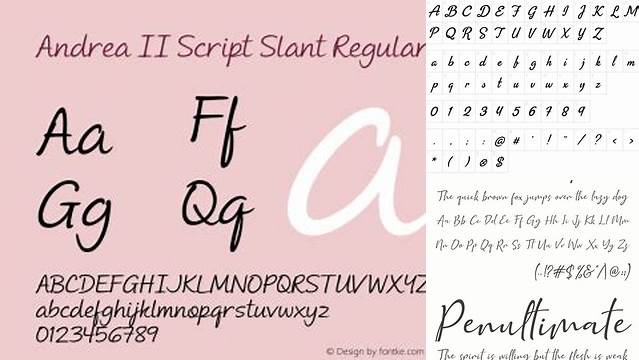
Andrea's Script Slant Font: Free Download Guide
Are you looking to add a touch of elegance and personality to your design projects? Look no further! Andrea's Script Slant font might be just what you need. This typeface combines the fluidity of script fonts with a subtle slant, creating a unique and eye-catching aesthetic. In this article, we'll delve into everything you need to know about Andrea's Script Slant font, including its characteristics, potential uses, and, most importantly, where you can find it for free download. So, buckle up and let's explore the world of this beautiful font!
What Makes Andrea's Script Slant Font Special?
Andrea's Script Slant font stands out from the crowd due to its distinctive features. Unlike traditional script fonts that often appear overly formal or rigid, Andrea's Script Slant strikes a perfect balance between sophistication and playfulness. The gentle slant adds a dynamic quality, making it feel more modern and approachable. The flowing lines and carefully crafted curves give it a handwritten feel, imbuing your designs with a personal touch. Whether you're working on wedding invitations, logos, branding materials, or social media graphics, Andrea's Script Slant can elevate your work to the next level.
Moreover, the versatility of Andrea's Script Slant font is another key factor that contributes to its popularity. It pairs well with a variety of other fonts, from classic serifs to clean sans-serifs, allowing you to create interesting and harmonious typography. Its legibility is also commendable, ensuring that your message is conveyed clearly, even at smaller sizes. This makes it suitable for both headings and body text, depending on the specific context. The font's unique character shines through in every application, adding a touch of individuality to your designs. Imagine using it for a heartfelt quote on a poster or a stylish signature on a business card – the possibilities are endless!
In short, Andrea's Script Slant font is special because it offers a unique blend of elegance, modernity, and versatility. Its distinctive slant, flowing lines, and excellent legibility make it a valuable asset for any designer looking to add a touch of personality to their projects. Plus, the fact that you can often find it for free download makes it even more appealing!
Potential Uses for Andrea's Script Slant Font
The beauty of Andrea's Script Slant font lies in its versatility. It's not just a pretty face; it's a workhorse that can be adapted to a wide range of design projects. Let's explore some of the most common and creative ways you can utilize this font to enhance your visual communication.
Branding and Logo Design
In the realm of branding, Andrea's Script Slant font can be a game-changer. A well-designed logo is the cornerstone of a strong brand identity, and the right font can make all the difference. Using Andrea's Script Slant for your logo can convey a sense of sophistication, creativity, and approachability. It's particularly well-suited for brands that want to project a personal touch, such as boutiques, artisanal shops, or creative agencies. The font's unique slant adds a memorable twist, helping your logo stand out from the competition. Imagine a coffee shop using Andrea's Script Slant for its logo – it instantly evokes a sense of warmth and handcrafted quality. Similarly, a beauty salon could use it to communicate elegance and style. The possibilities are endless, and the key is to align the font's personality with your brand's values.
Wedding Invitations and Stationery
When it comes to wedding invitations, Andrea's Script Slant font can add a touch of romance and elegance. Wedding stationery is all about creating a memorable first impression, and the font you choose plays a crucial role in setting the tone. Andrea's Script Slant is perfect for couples who want to strike a balance between tradition and modernity. Its flowing lines and gentle slant evoke a sense of romance, while its clean design ensures legibility. You can use it for the main invitation text, the bride and groom's names, or even for decorative elements like monograms. Pair it with a classic serif font for a sophisticated look, or with a minimalist sans-serif for a more contemporary feel. The result will be a stunning invitation that reflects your personal style and sets the stage for a beautiful celebration.
Social Media Graphics
In the fast-paced world of social media, Andrea's Script Slant font can help you grab attention and stand out from the crowd. Social media graphics need to be visually appealing and easy to read, and Andrea's Script Slant ticks both boxes. Use it for quotes, announcements, or promotional posts to add a touch of personality to your feed. Its unique slant will catch the eye of your followers, while its clean design ensures that your message is conveyed clearly. Experiment with different colors and backgrounds to create visually striking graphics that reflect your brand's aesthetic. Whether you're promoting a product, sharing an inspiring quote, or announcing an upcoming event, Andrea's Script Slant can help you make a lasting impression.
Website Design
Andrea's Script Slant font can also be used to enhance your website design. While it's generally not recommended for large blocks of body text, it can be very effective for headings, subheadings, and decorative elements. Using it sparingly can add a touch of personality and visual interest to your site. It's particularly well-suited for websites that want to project a creative or artistic vibe, such as portfolios, blogs, or online stores. Just make sure to choose a complementary font for the body text to ensure readability. By carefully incorporating Andrea's Script Slant into your website design, you can create a unique and engaging user experience.
Andrea's Script Slant font is a beautiful and versatile typeface that can add a touch of elegance and personality to your design projects. Whether you're working on branding, wedding invitations, social media graphics, or website design, this font can help you create visually stunning and memorable designs. While finding it for free download may require some searching, the effort is well worth it. By using the resources and tips mentioned in this article, you'll be well on your way to incorporating Andrea's Script Slant font into your design toolkit. So go ahead, unleash your creativity and let this font elevate your designs to new heights!